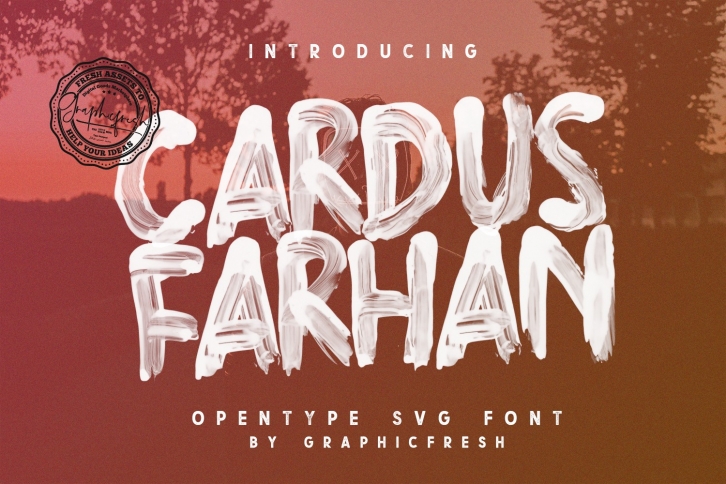
Cardus Brush SVG Font Download
Cardus Brush SVG is a gorgeous font that was realeased on April 5, 2019. The font can be used in many style contexts and design environments. Perfect for invitations, magazines, websites, logos, and more! It was designed by Graphicfresh and the file size is 7.56 MB. Thanks for checking out this font!